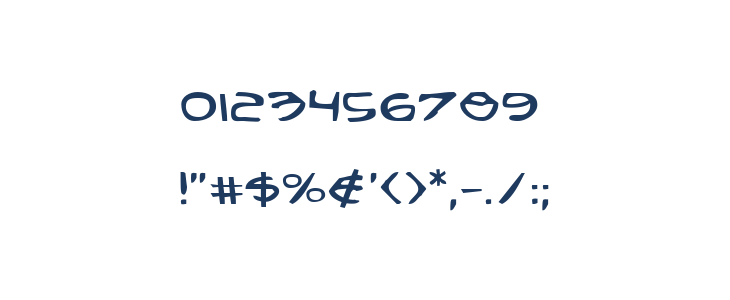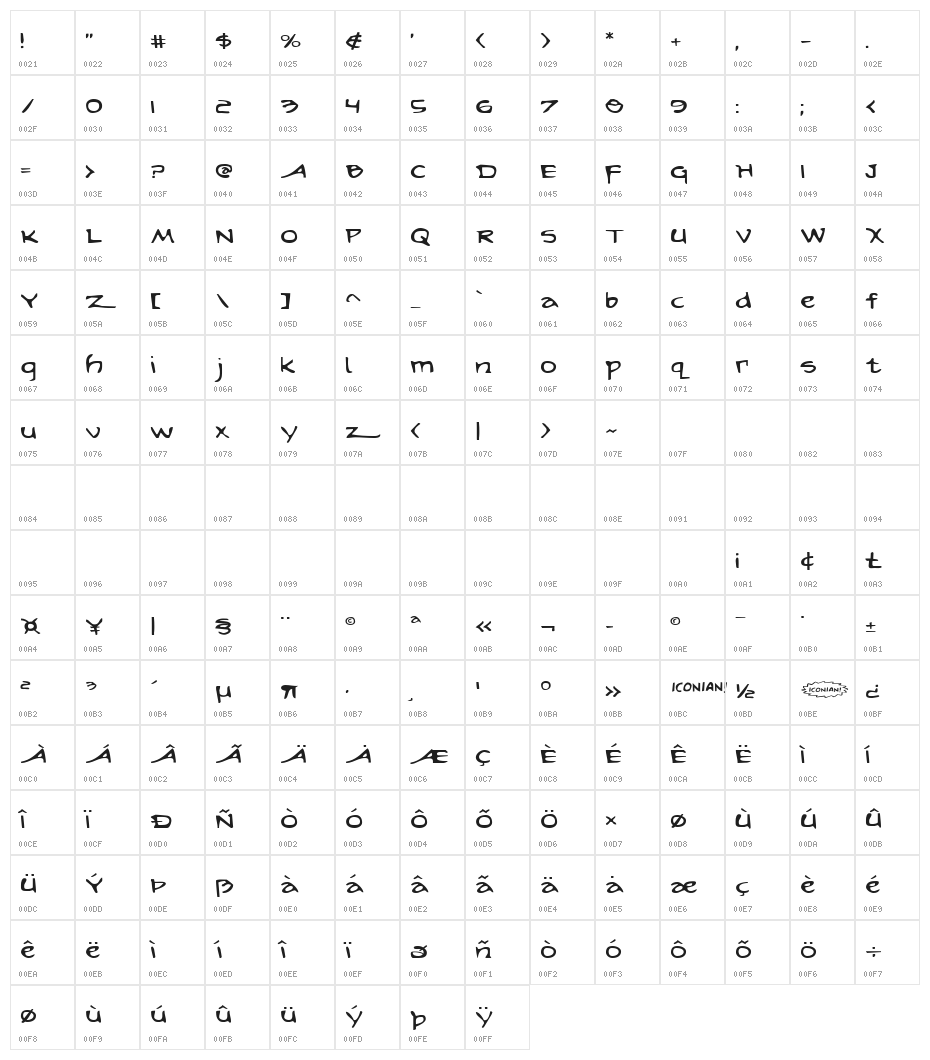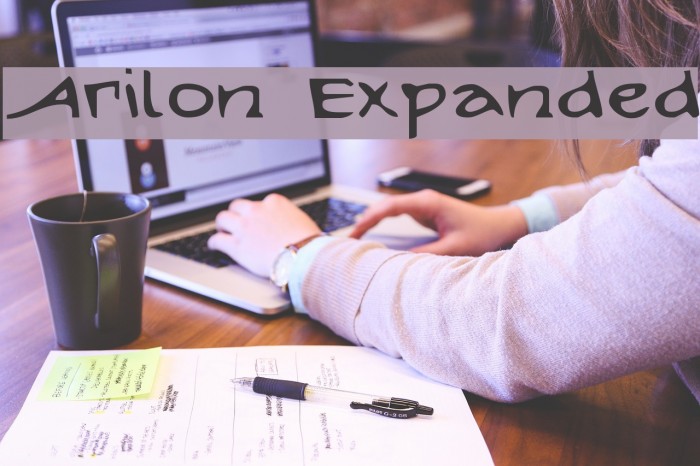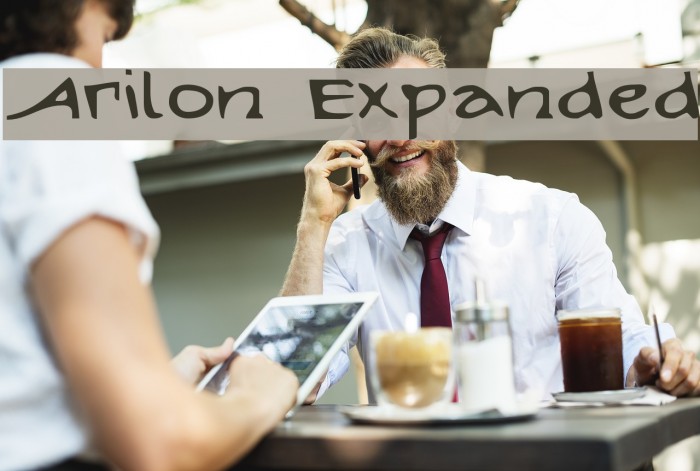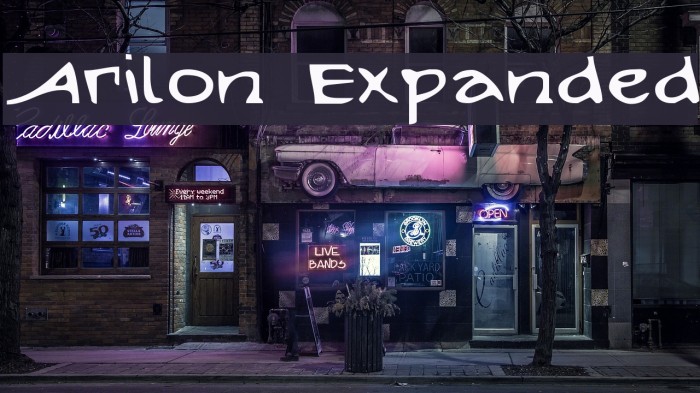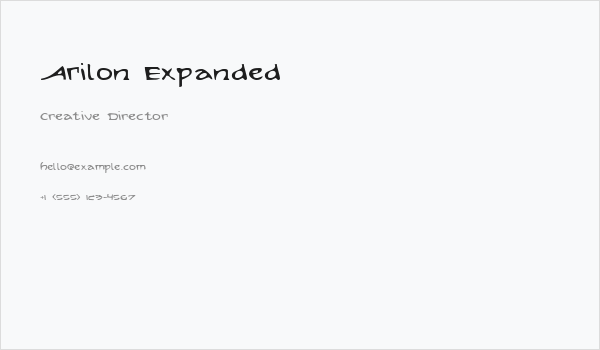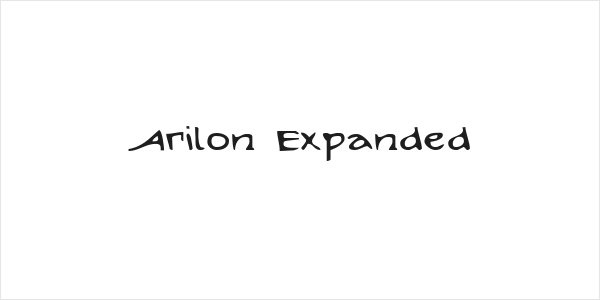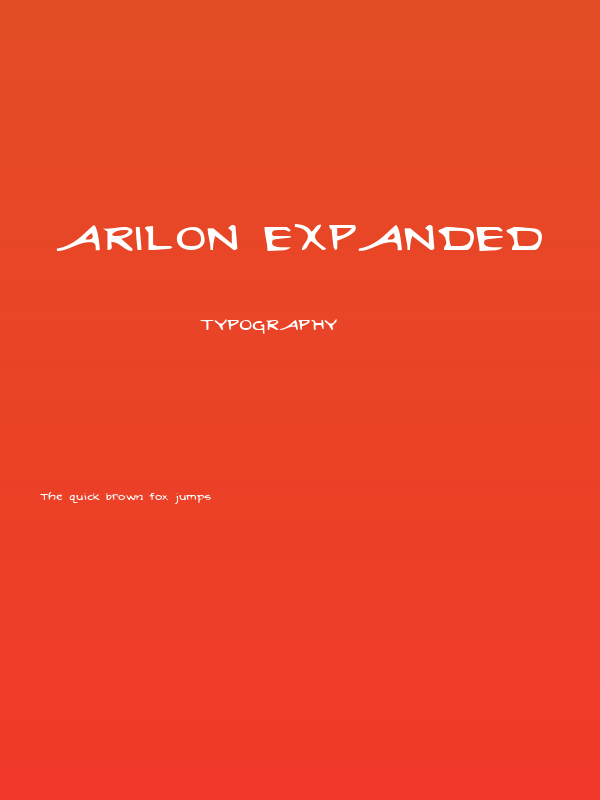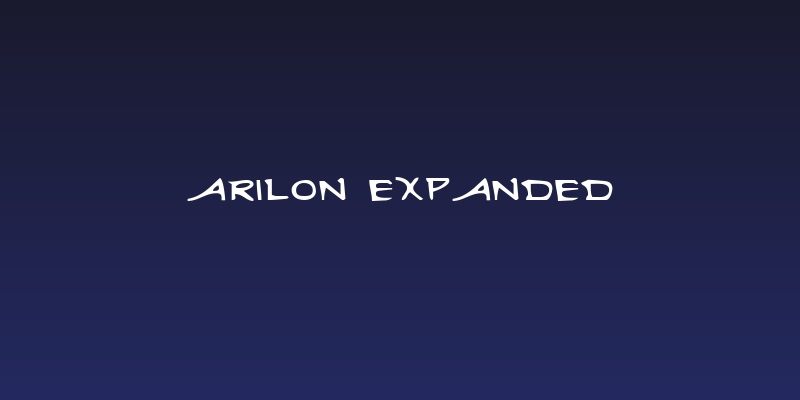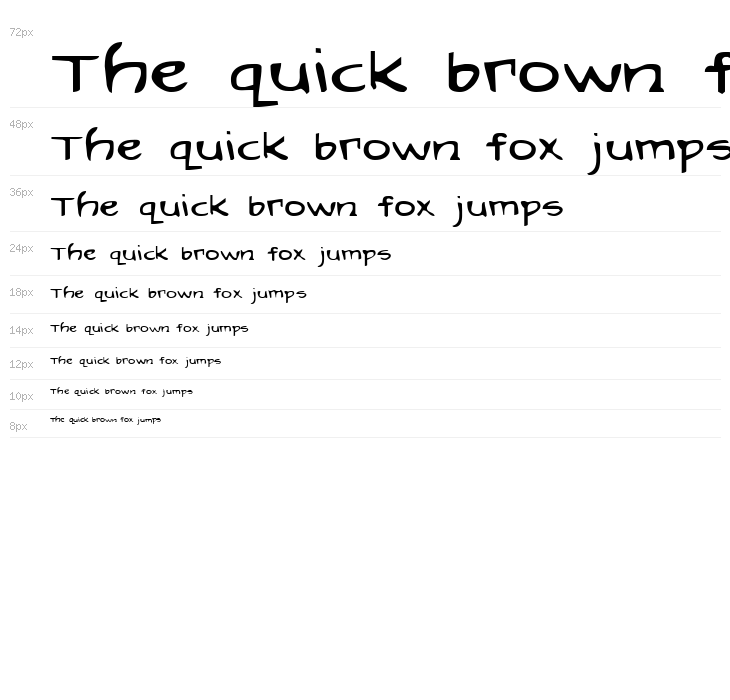
Arilon Expanded Font
Arilon Expanded Description
This font features a unique and artistic style with a hand-drawn appearance. The characters are slightly irregular, giving it a playful and informal feel. The uppercase letters have a dynamic, flowing quality, while the lowercase letters maintain a consistent style that complements the uppercase. The numbers are bold and distinct, ensuring readability. Special characters are creatively designed, adding to the font's overall charm. This font's expanded width and medium contrast make it stand out, ideal for projects that require a touch of creativity and individuality.
| Overall Style | Artistic, Playful |
| Use Case | Logos, Posters, Invitations |
| Proposed Projects | Ideal for creative projects such as posters, invitations, logos, and branding materials that require a unique and artistic touch. |